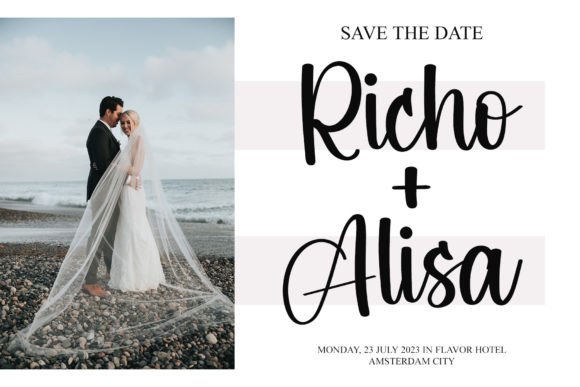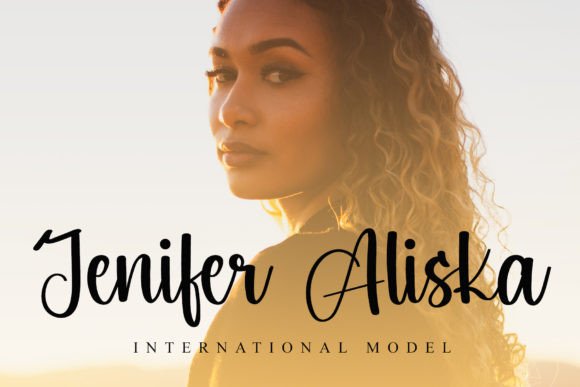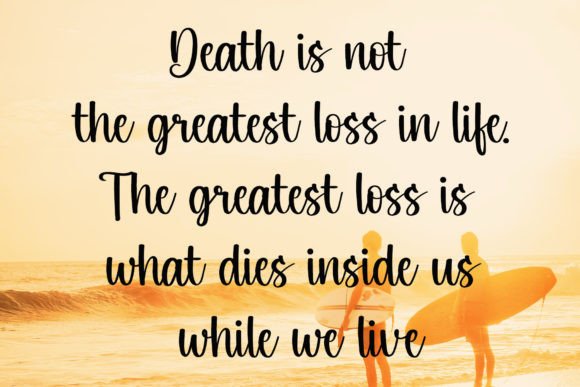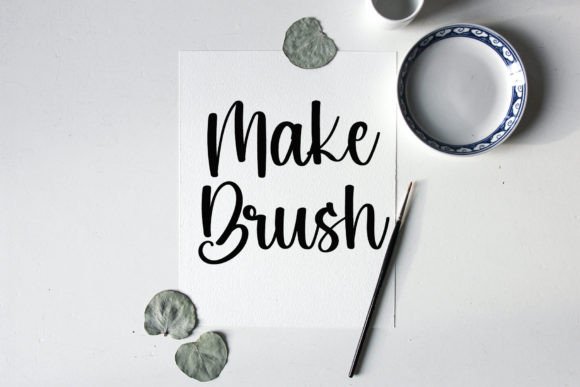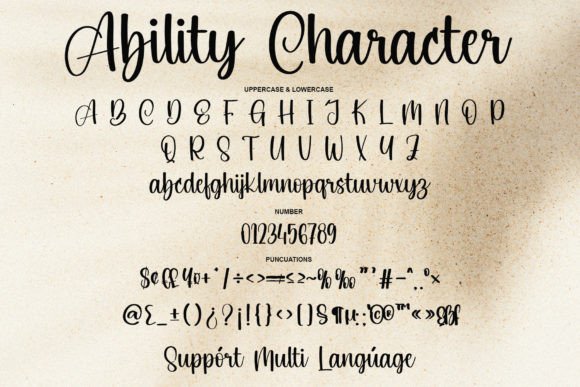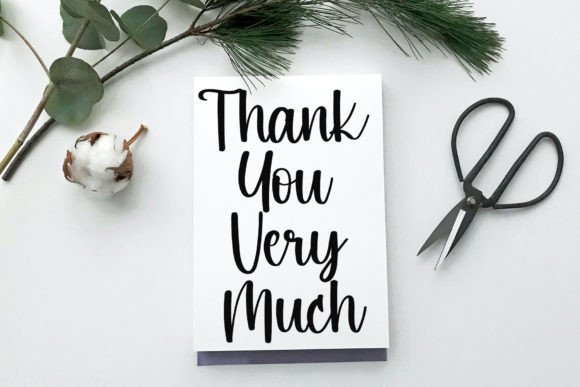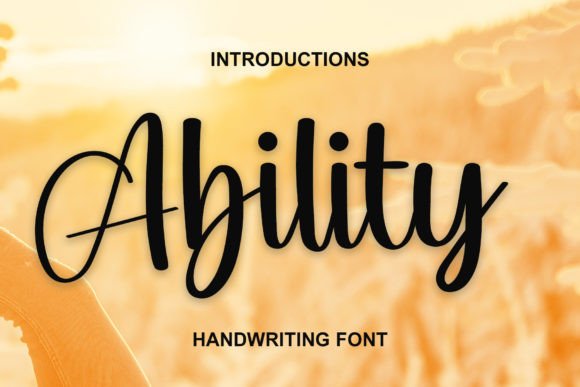
Introducing Ability Font: Elevate Your Designs with Timeless Elegance
In the world of typography, few fonts manage to strike a balance between modern flair and classic sophistication. Ability Font is one such exceptional typeface that brings a stylish, handwritten feel to your designs, inspired by the timeless elegance of classic calligraphy. With its contemporary atmosphere and impeccable form, Ability Font is poised to enhance the beauty of your projects, whether you’re a designer, crafter, or simply someone with a passion for typography.
The Inspiration Behind Ability Font
Ability Font draws its inspiration from the rich heritage of calligraphy, a art form that has been perfected over centuries. The creators of Ability Font sought to capture the essence of classic calligraphy and infuse it with a modern twist, making it suitable for a wide range of design applications. The result is a font that exudes sophistication, elegance, and a touch of personality.
Key Features of Ability Font
• Stylish Handwritten Feel: Ability Font boasts a beautiful, handwritten appearance that adds a personal touch to your designs.
• Contemporary Atmosphere: With its clean lines and balanced proportions, Ability Font feels fresh and modern, making it perfect for designs that require a contemporary edge.
• Impeccable Form: The font’s attention to detail and precise craftsmanship ensure that it looks polished and refined, even at smaller sizes.
• Balanced and Varied: Ability Font features a range of characters and glyphs that provide flexibility and variety, allowing you to create unique and engaging designs.
What Makes Ability Font Stand Out
Ability Font’s unique blend of classic and modern elements sets it apart from other fonts in its category. Its exceptional legibility, versatility, and aesthetic appeal make it an excellent choice for designers and crafters looking to elevate their work. Here are a few reasons why Ability Font stands out:
• Legibility: The font’s clear and readable design ensures that your message is conveyed effectively, even at smaller sizes.
• Versatility: Ability Font can be used for a wide range of design applications, from branding and advertising to packaging and digital media.
• Aesthetic Appeal: The font’s elegant and refined appearance adds a touch of sophistication to your designs, making them more engaging and memorable.
Who Can Benefit from Ability Font
Ability Font is an excellent addition to any designer’s or crafter’s toolkit. Here are a few examples of professionals who can benefit from using Ability Font:
• Graphic Designers: Ability Font is perfect for branding, advertising, and marketing materials that require a touch of elegance and sophistication.
• Crafters: The font’s handwritten feel and classic inspiration make it an excellent choice for crafters working on projects such as card making, scrapbooking, and DIY signage.
• Digital Artists: Ability Font can be used to add a touch of personality and whimsy to digital art, illustrations, and animations.
Tips for Using Ability Font Effectively
To get the most out of Ability Font, here are a few tips to keep in mind:
• Pair it with Other Fonts: Ability Font can be paired with other fonts to create a unique and engaging visual identity.
• Experiment with Colors: The font’s elegant appearance can be enhanced with a range of colors, from bold and bright to subtle and muted.
• Pay Attention to Kerning: To ensure optimal legibility, pay attention to kerning and adjust it as needed to create a smooth and polished appearance.
In conclusion, Ability Font is a stylish and elegant typeface that brings a touch of timeless sophistication to your designs. With its impeccable form, balanced and varied characters, and contemporary atmosphere, Ability Font is an excellent choice for designers and crafters looking to elevate their work. Whether you’re working on a branding project, crafting a handmade card, or creating digital art, Ability Font is sure to impress.